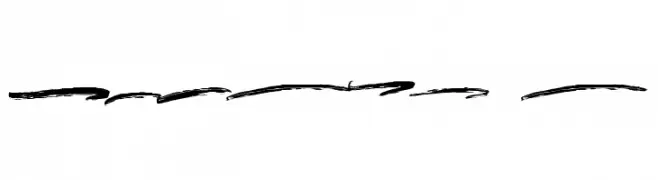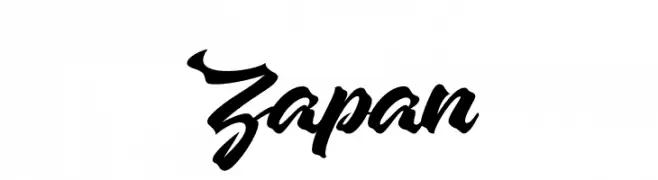
A dynamic and expressive script font with fluid, cursive strokes.
A bold, grunge-style font with a hand-painted, expressive look.
A dynamic, brush-style font with expressive, fluid strokes.
A bold, expressive script font with high contrast and dynamic flow.
A bold, brushstroke-style font with a dynamic and artistic flair.
A dynamic, brush-style handwritten font with expressive strokes.
A bold, brush-like font with an artistic and expressive style.
A dynamic, brush-style script font with bold, expressive strokes.
A dynamic, brush-style font with expressive, fluid strokes.
A dynamic, brush-stroke inspired font with expressive and artistic flair.